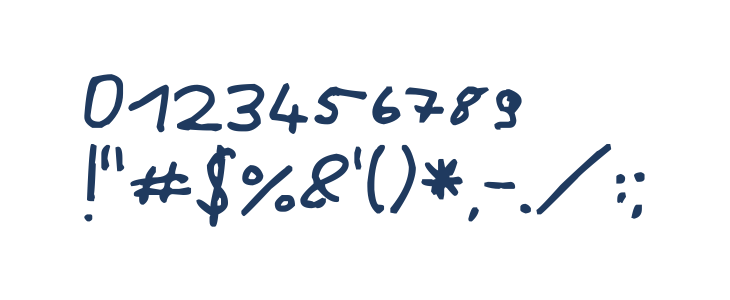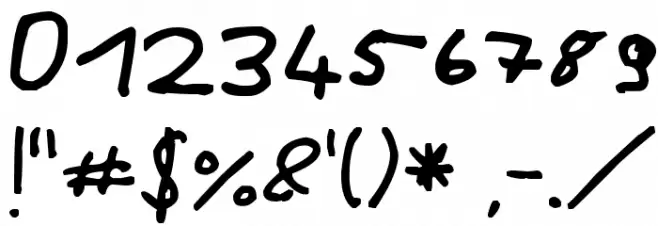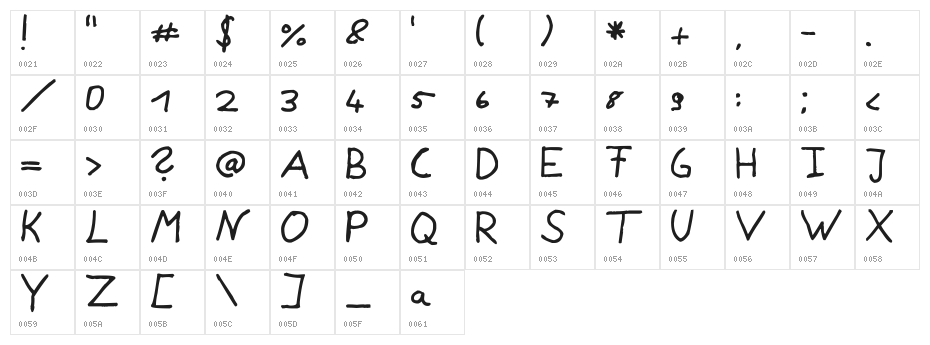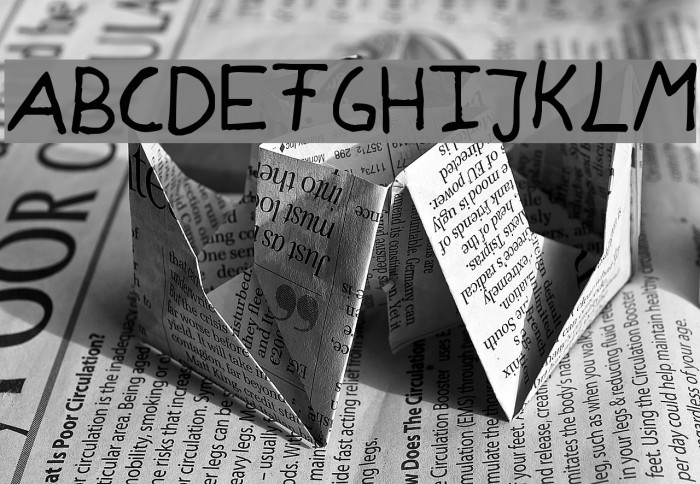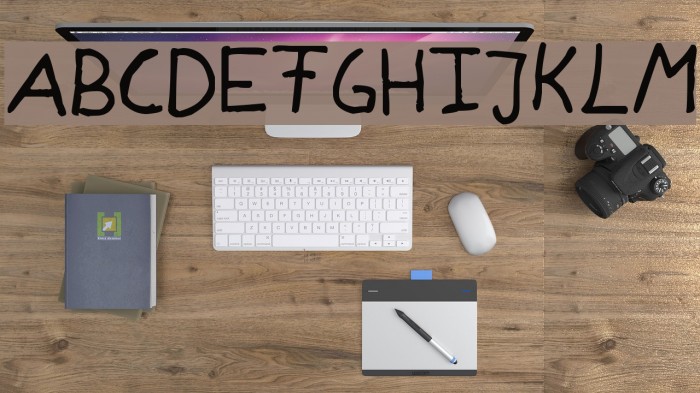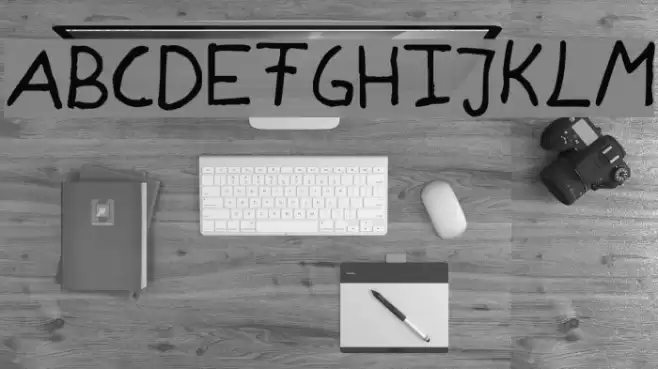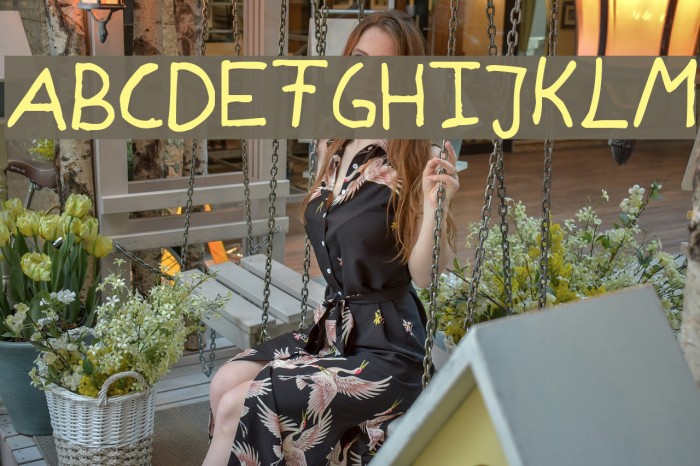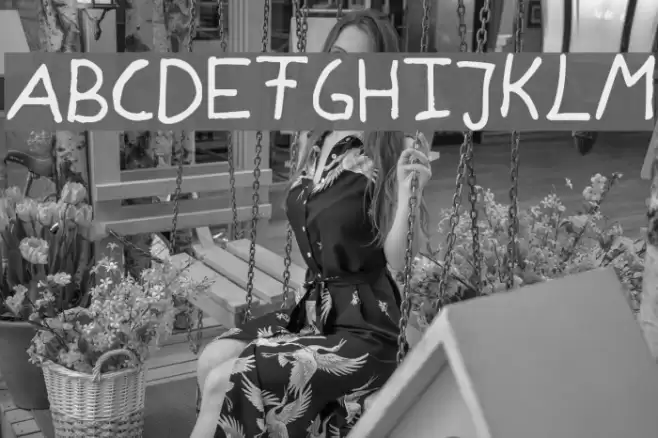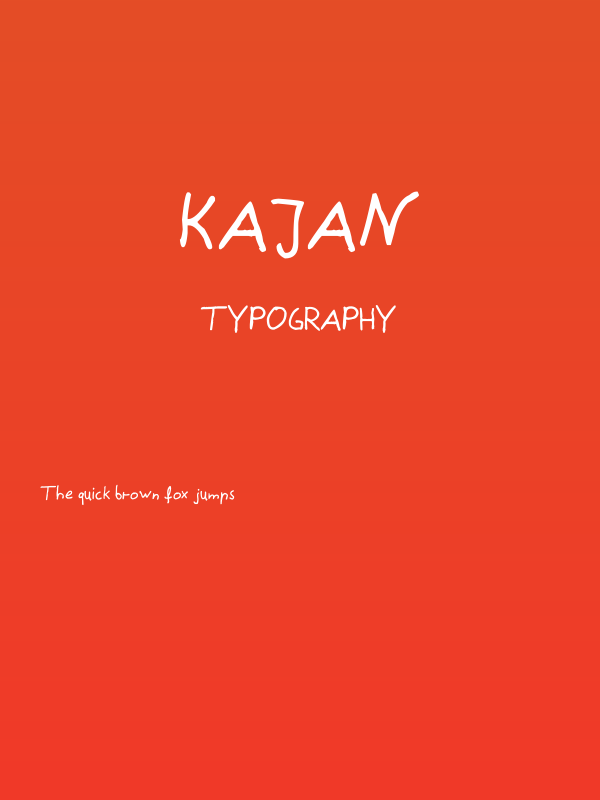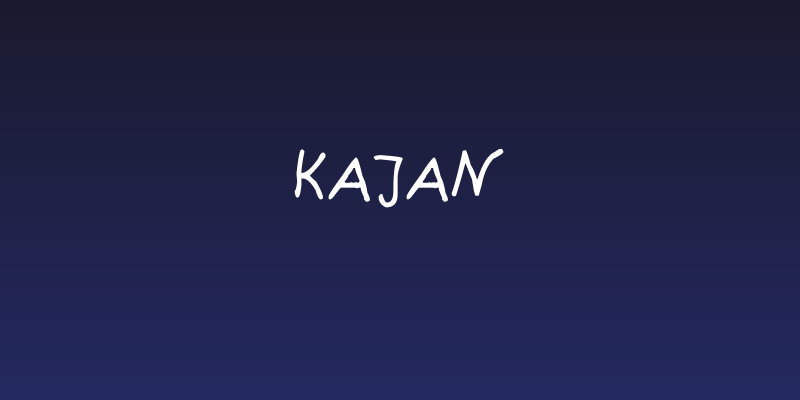
Kajan Font
Kajan Description
This font features a playful and casual handwritten style, characterized by its irregular and organic letterforms. The strokes are uneven, giving it a natural and spontaneous appearance. The uppercase letters are bold and slightly tilted, while the lowercase letters maintain a consistent flow with rounded edges. The numerals and special characters follow the same informal style, making the font versatile for creative projects. Its unique charm lies in its imperfect lines and lively personality, making it ideal for projects that require a personal touch.